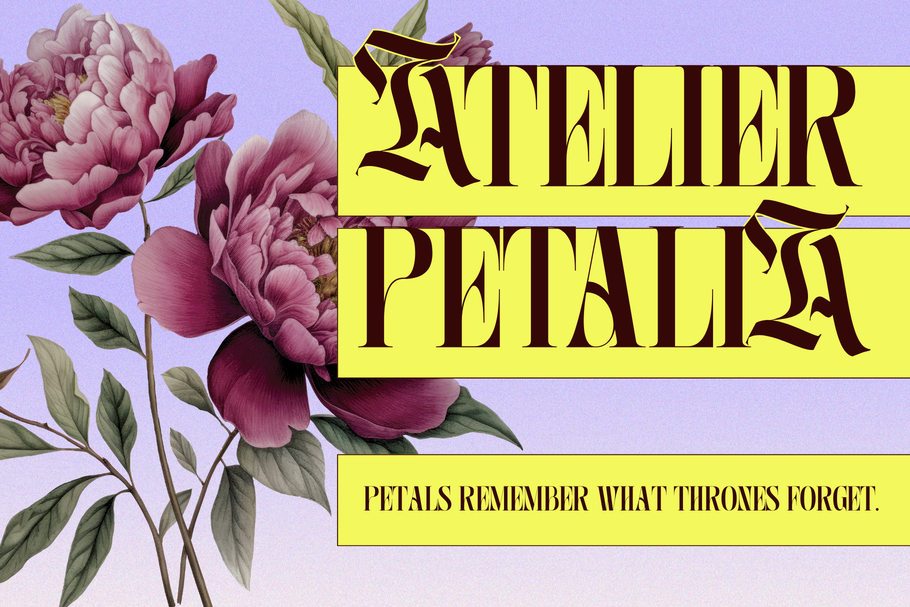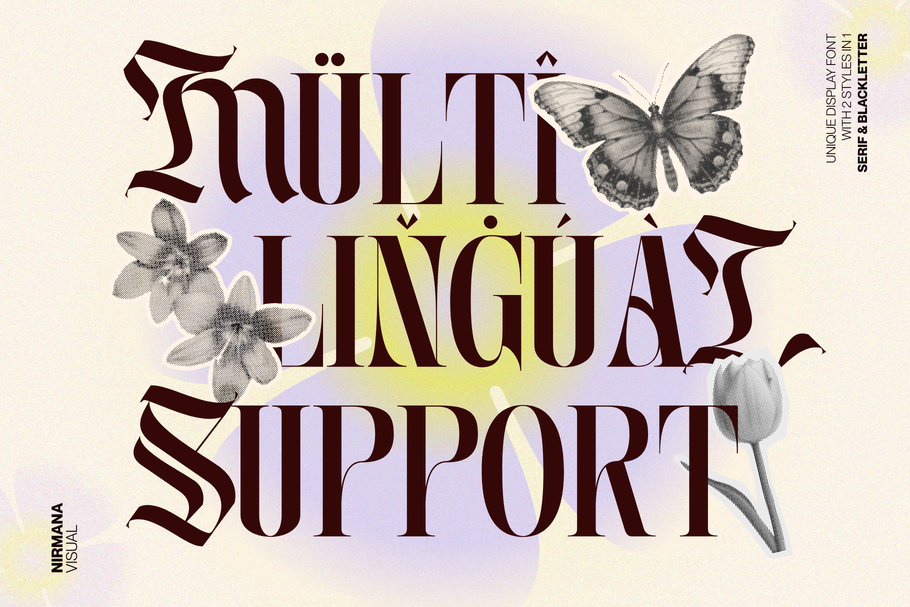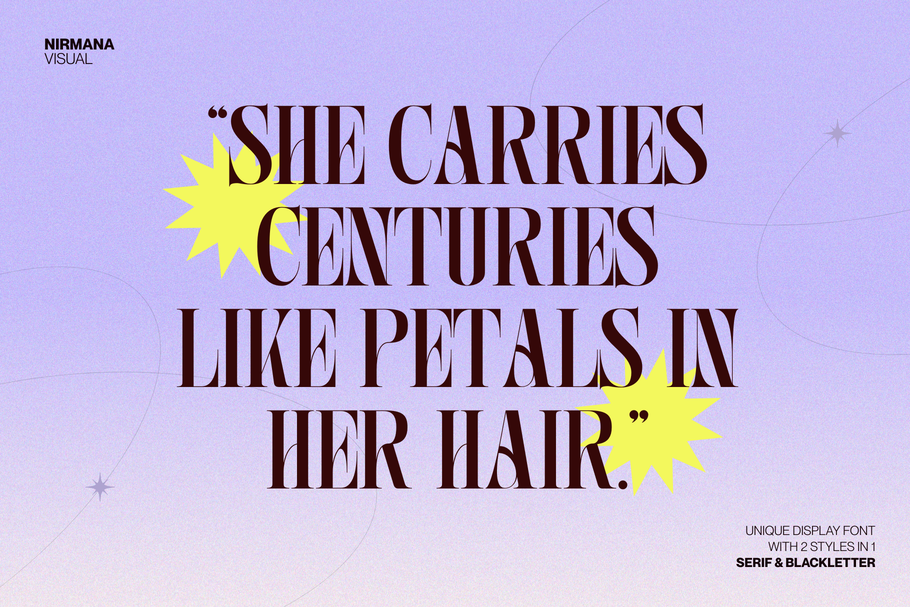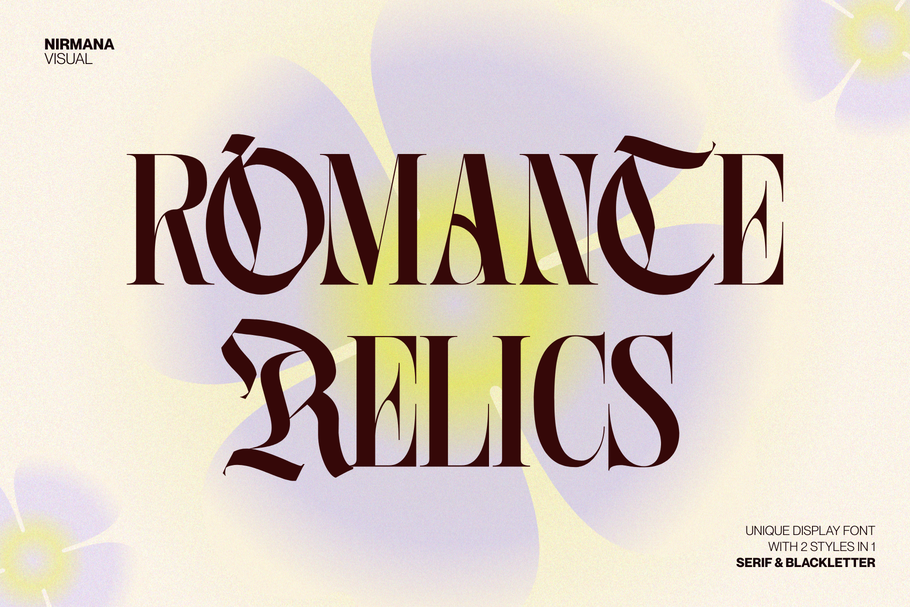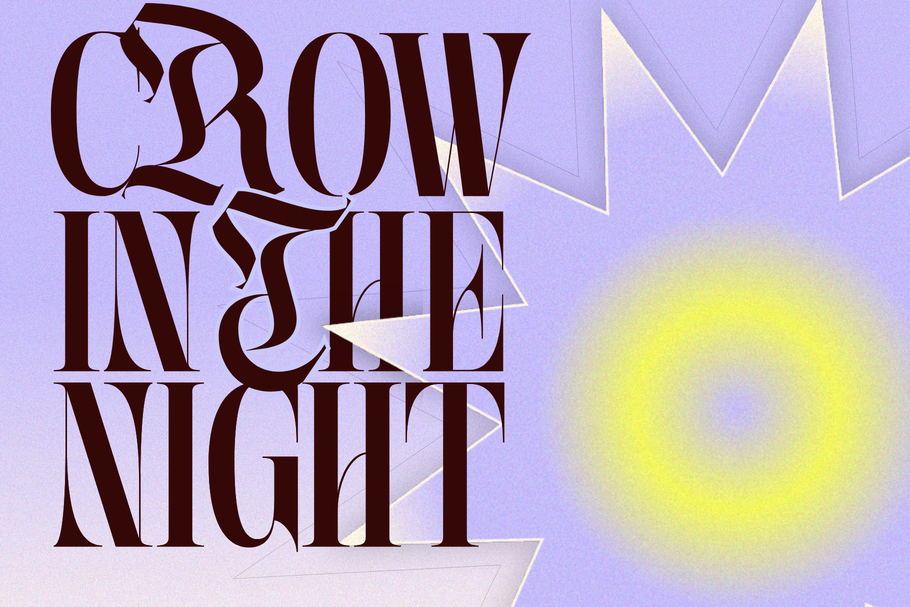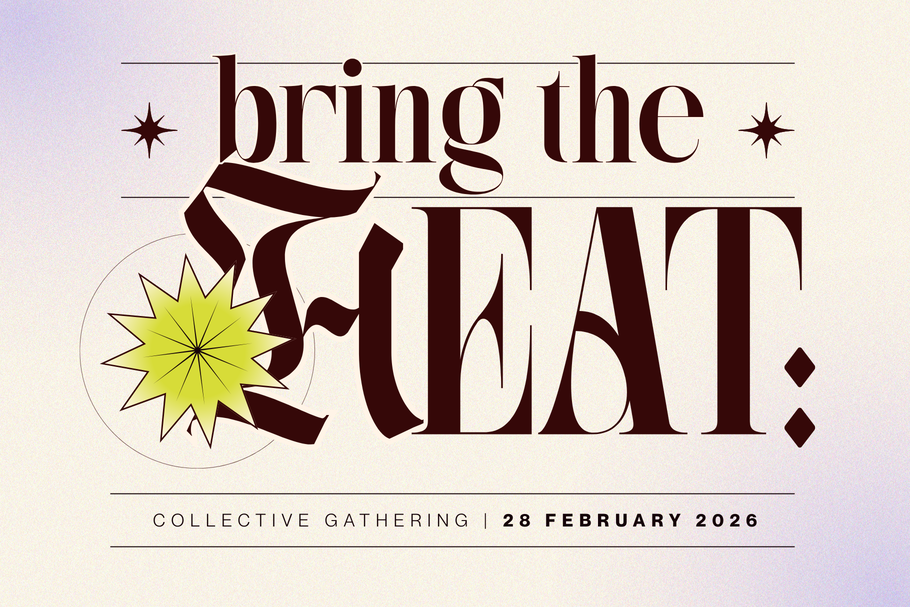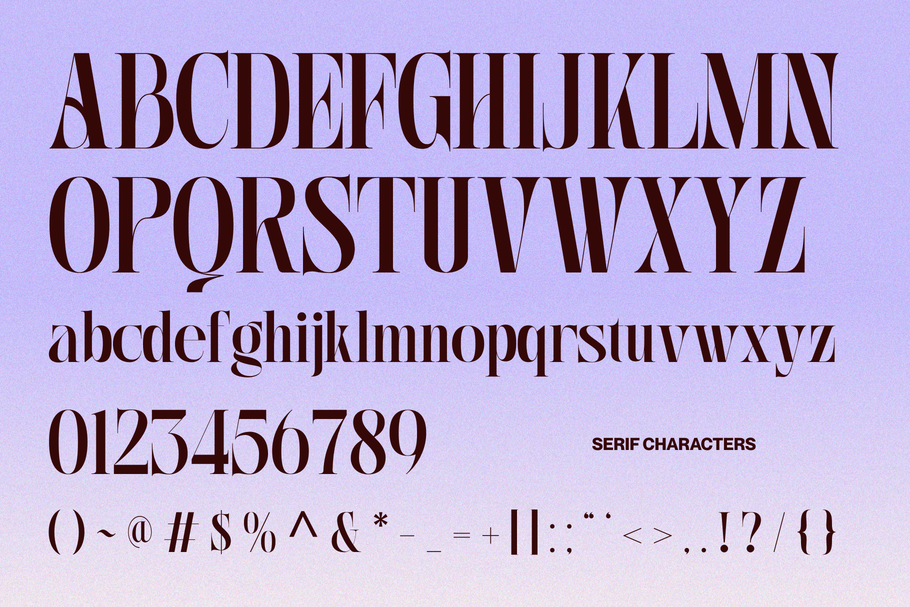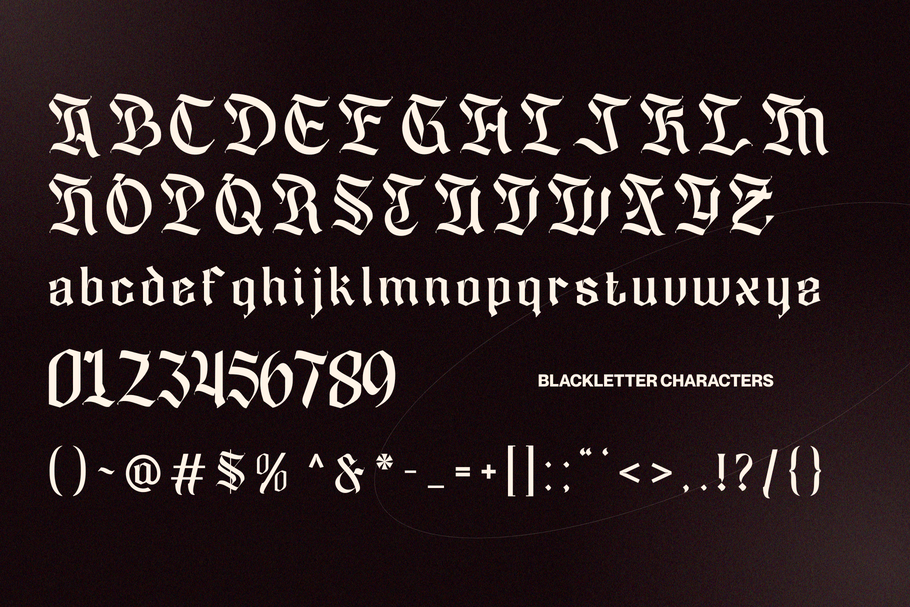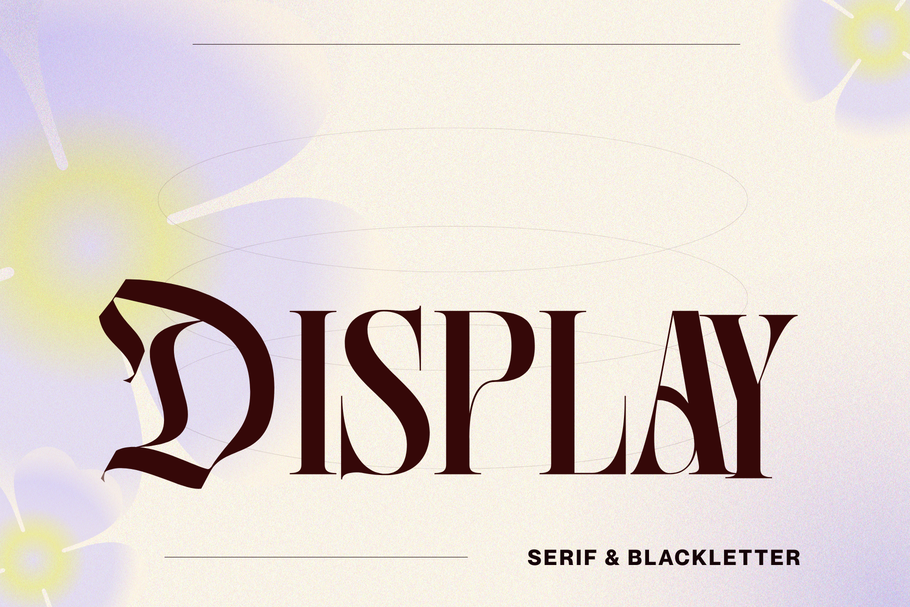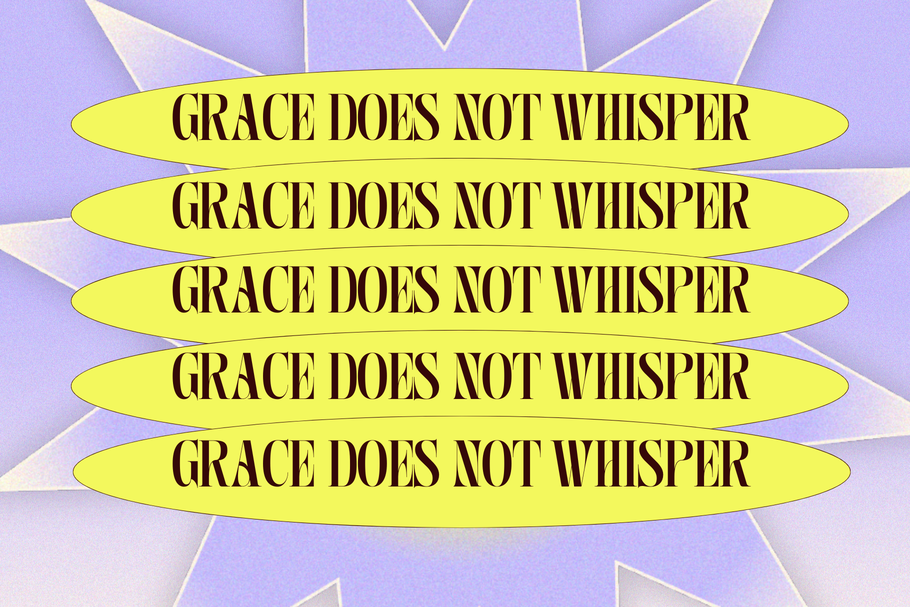
Avore Logo Modern – Duo Font
Avore offers beautiful typographic harmony for a diversity of design projects, including logos & branding, social media posts, advertisements & product designs.
What you get : Serif + Blackletter
• Branding Logo Font
• Modern Design
• Perfect for Branding & Logos
• Multilingual Support
• Serif + Blackletter